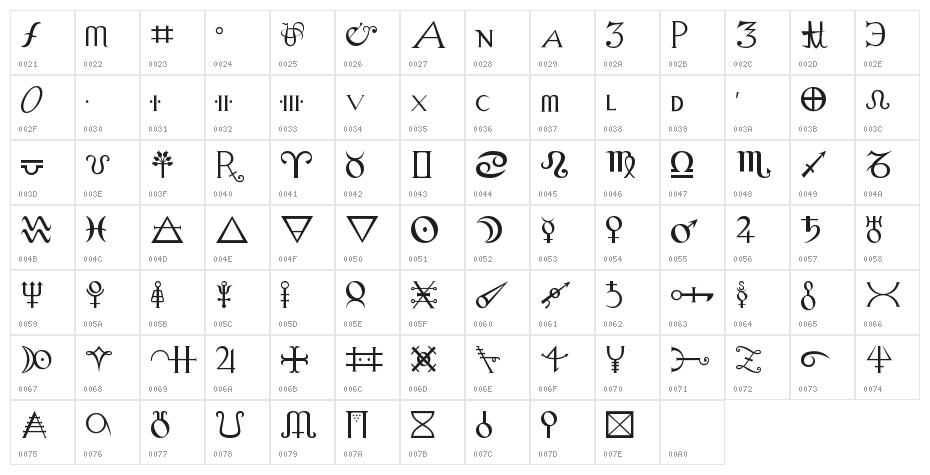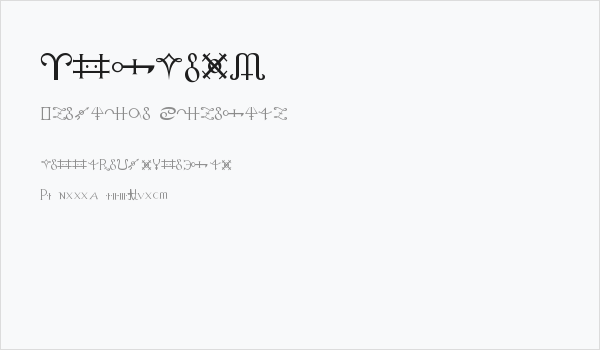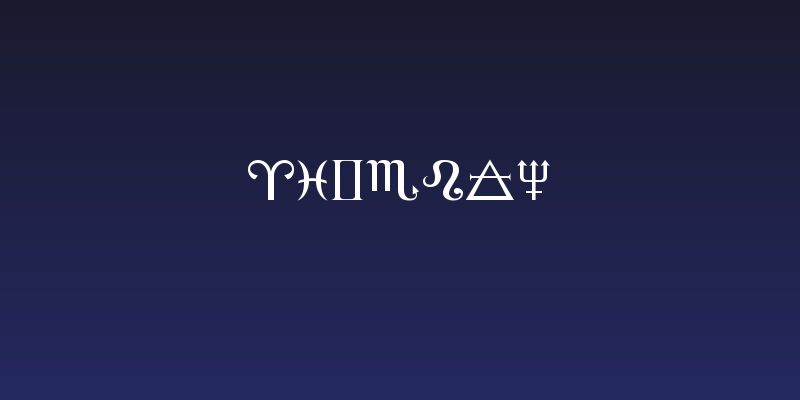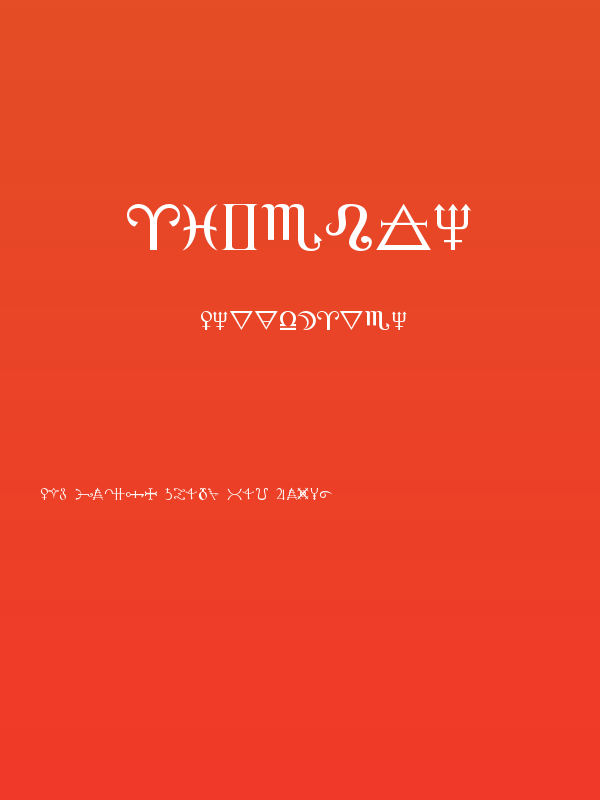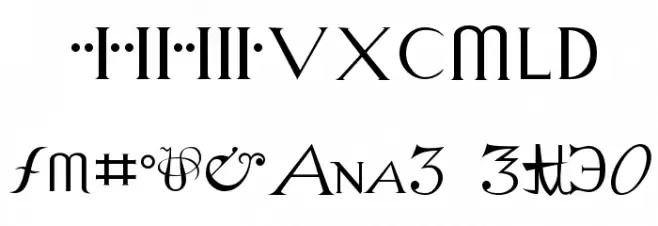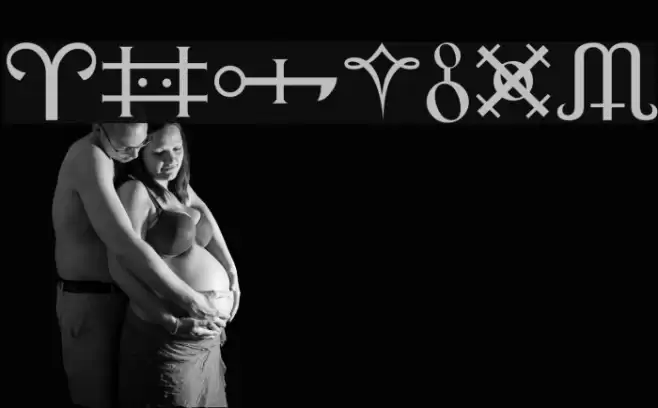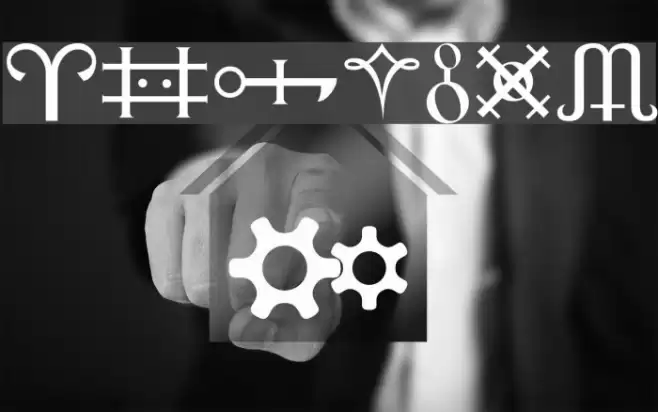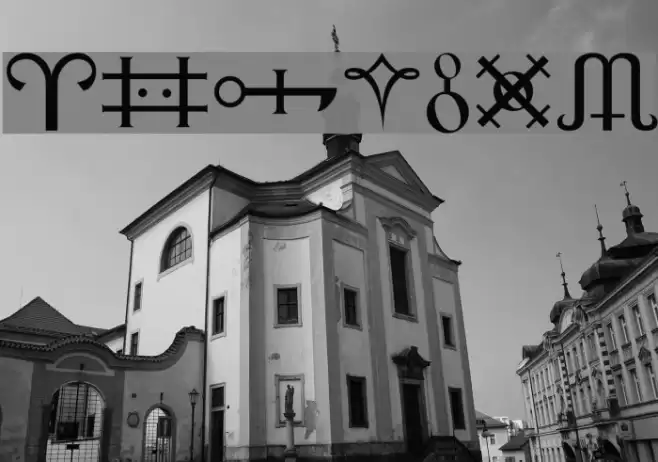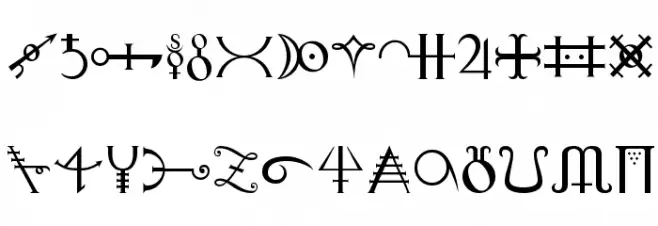
Alchemy Font
| Stil general | Mystical, Historical |
| Caz de utilizare | Artistic designs, Thematic projects, Historical displays |
| Proiecte propuse | These symbols could be used in projects related to historical research, fantasy games, mystical or esoteric publications, or artistic designs that require an ancient or mysterious theme. |